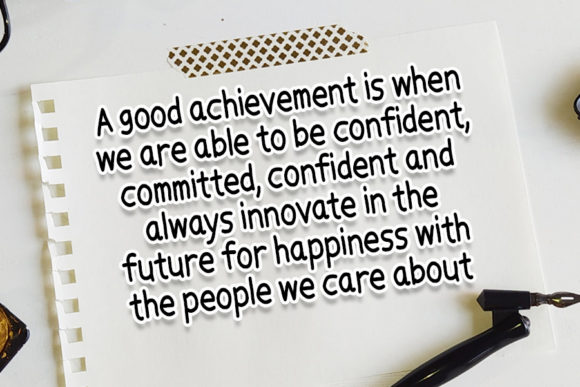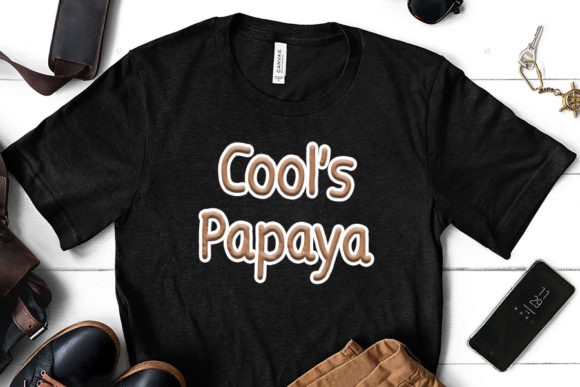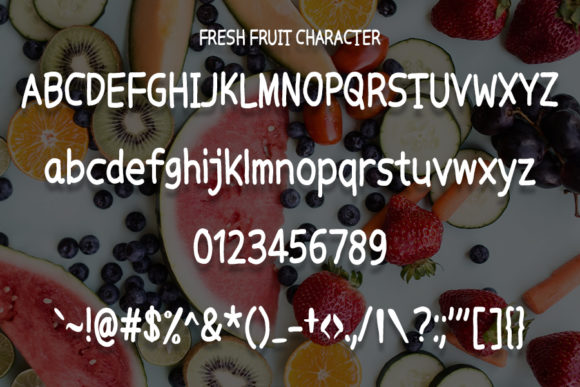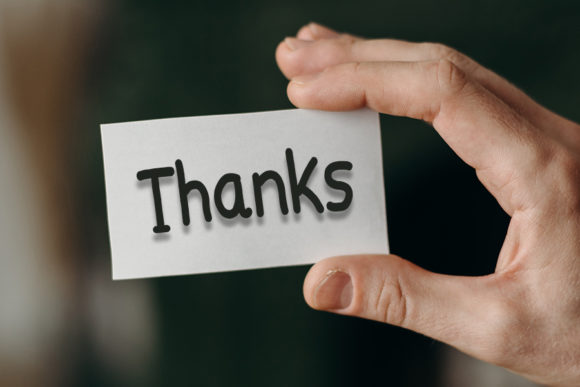
Introducing Fresh Fruit Font: The Perfect Blend of Clean and Trendy
Are you a designer, crafter, or digital artist looking for a font that embodies the perfect balance of cleanliness and trendiness? Look no further than Fresh Fruit Font! This stunning display font is designed to elevate your creative projects, whether you’re working on crafting, digital designing, presentations, or greeting cards.
What Makes Fresh Fruit Font So Special?
Fresh Fruit Font is a clean and fresh display font that boasts a unique blend of modernity and playfulness. Its sleek lines, subtle curves, and carefully crafted letterforms make it an ideal choice for a wide range of creative applications. Here are just a few reasons why Fresh Fruit Font stands out:
- Clean and Legible: Fresh Fruit Font features clean lines, clear letterforms, and a well-balanced design that ensures excellent legibility, even at smaller sizes.
- Trendy and Modern: With its subtle curves and rounded edges, Fresh Fruit Font exudes a trendy and modern vibe that’s perfect for designers and crafters who want to add a touch of sophistication to their work.
- Versatile: Whether you’re creating digital content, crafting handmade cards, or designing presentations, Fresh Fruit Font adapts seamlessly to any medium or style.
Fresh Fruit Font is an excellent choice for designers and crafters who want to add a professional touch to their work. Here are some ways you can use Fresh Fruit Font to elevate your creative projects:
- Digital Designing: Use Fresh Fruit Font to create stunning social media graphics, blog headers, and website titles that capture your audience’s attention.
- Crafting: Add a touch of elegance to your handmade cards, scrapbook pages, and journal entries with Fresh Fruit Font.
- Presentations: Make your presentations stand out with Fresh Fruit Font’s clean and modern design, perfect for titles, headings, and bullet points.
- Greeting Cards: Create beautiful and heartfelt greeting cards for special occasions using Fresh Fruit Font.
Tips for Using Fresh Fruit Font
To get the most out of Fresh Fruit Font, here are some tips to keep in mind:
- Experiment with Sizes: Fresh Fruit Font looks great at various sizes, so don’t be afraid to experiment with different font sizes to find the perfect fit for your project.
- Pair with Other Fonts: Combine Fresh Fruit Font with other fonts to create a unique and visually appealing typography scheme.
- Play with Colors: Fresh Fruit Font looks stunning in a variety of colors, so try experimenting with different hues and shades to find the perfect match for your project.
Fresh Fruit Font is a versatile and stylish display font that’s perfect for designers, crafters, and digital artists. With its clean lines, trendy vibe, and excellent legibility, it’s an excellent choice for a wide range of creative applications. Whether you’re working on digital designing, crafting, presentations, or greeting cards, Fresh Fruit Font is sure to elevate your work and help you achieve professional-looking results.